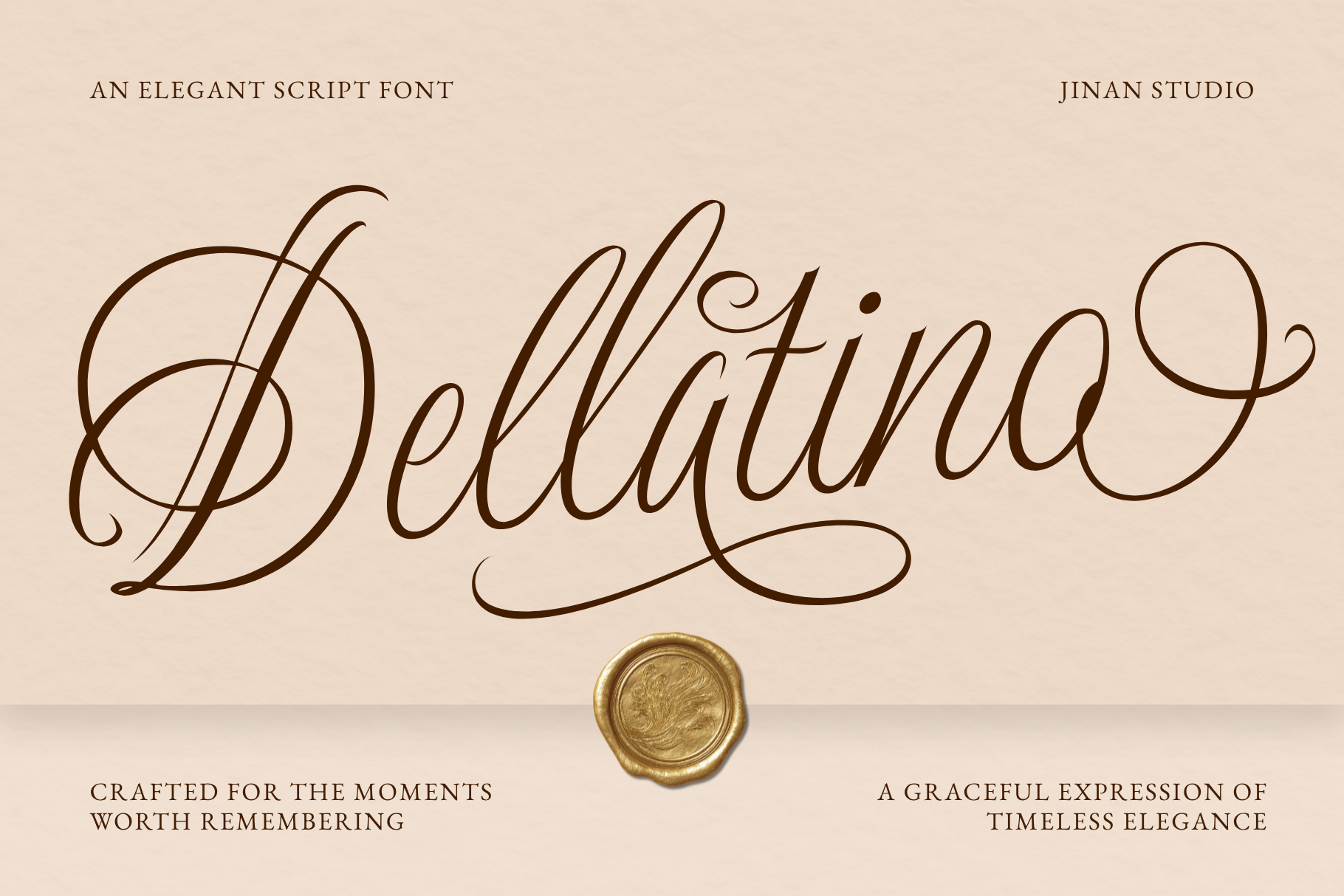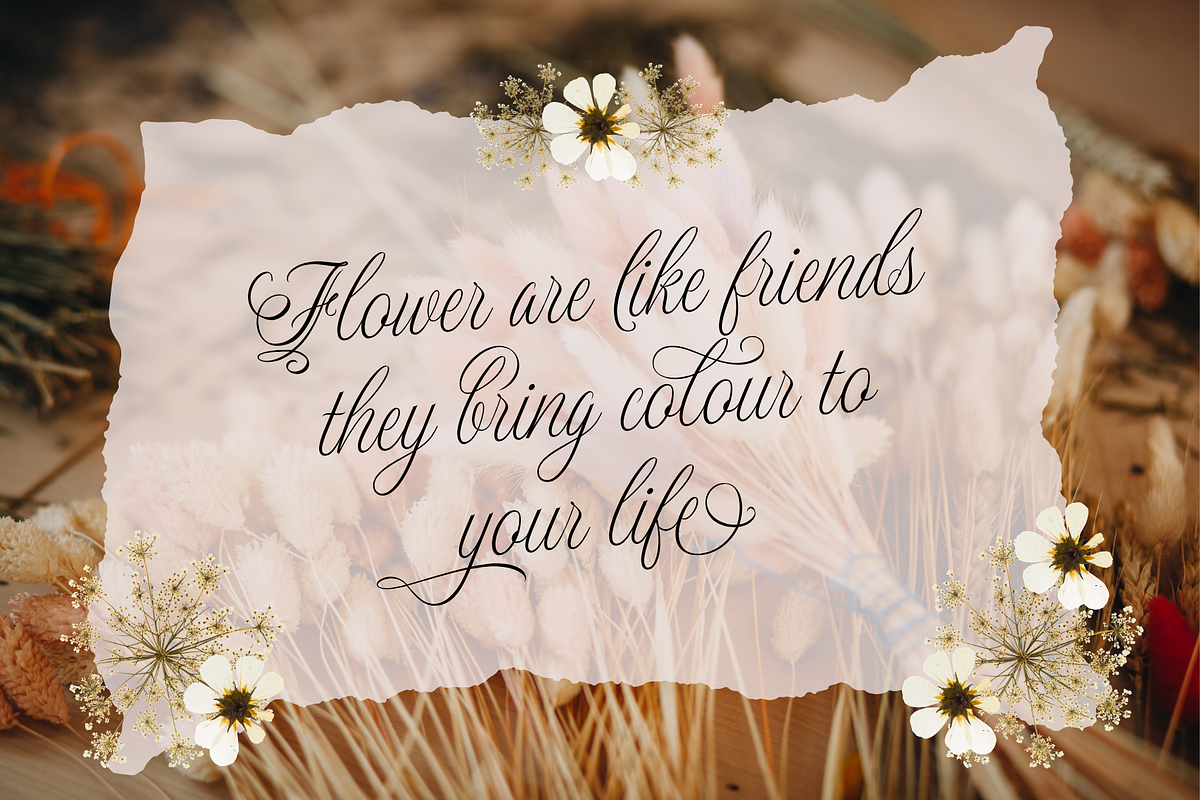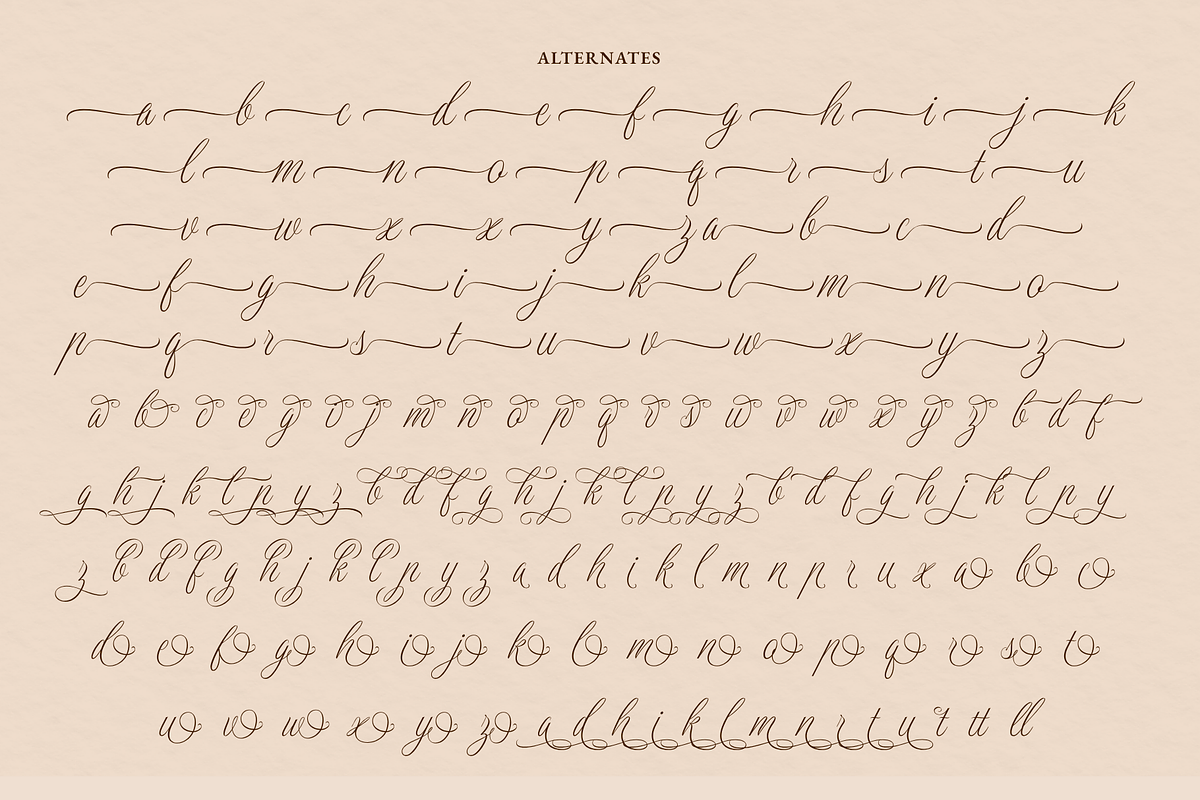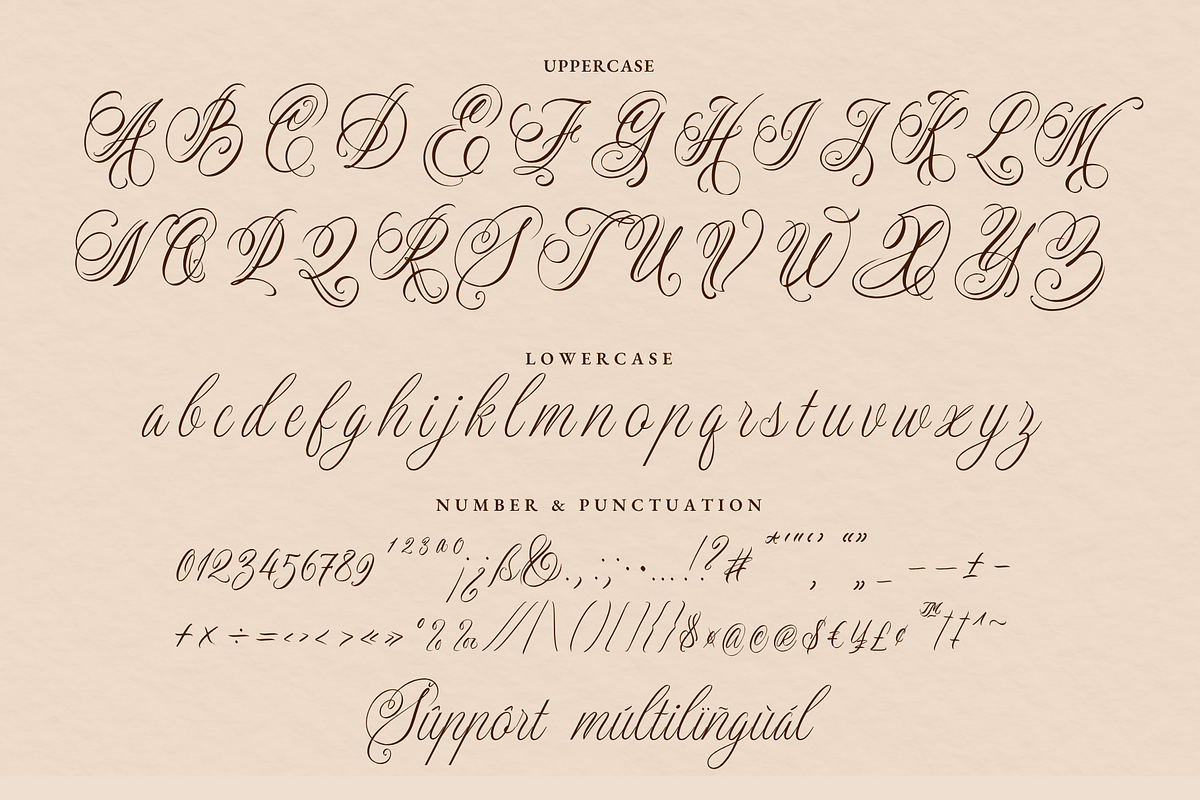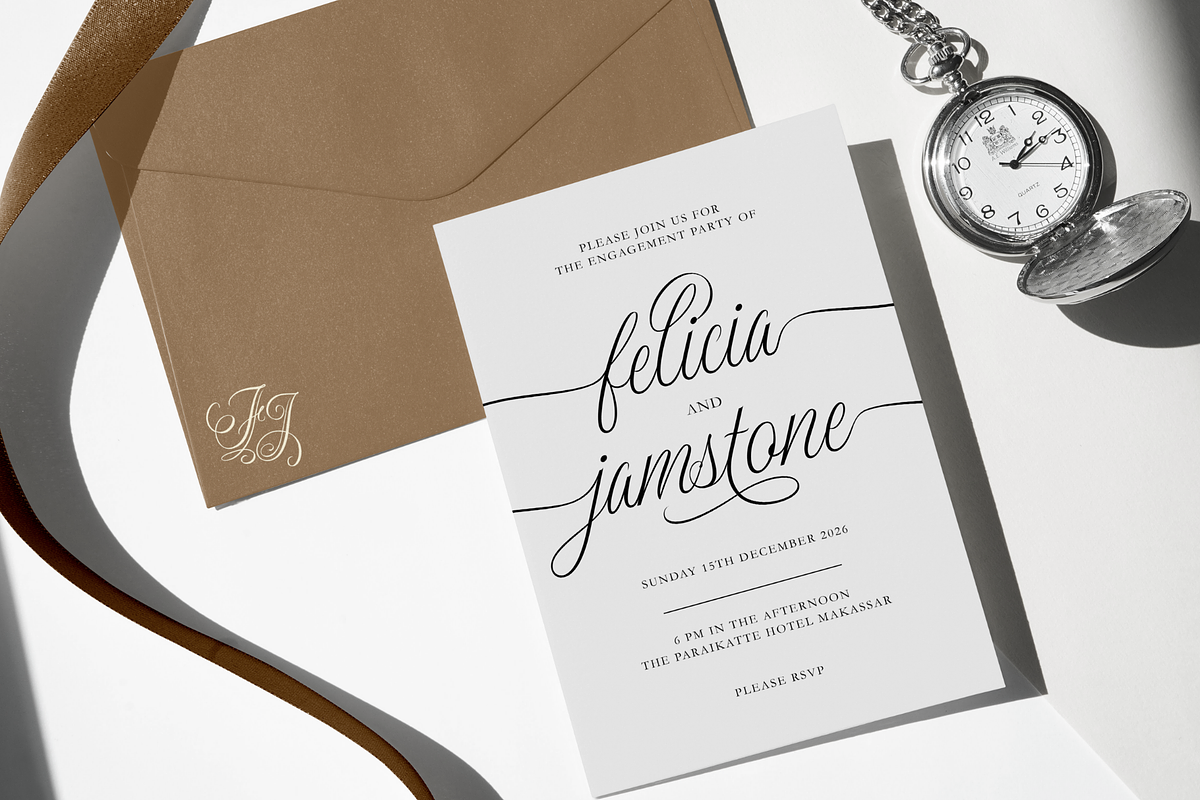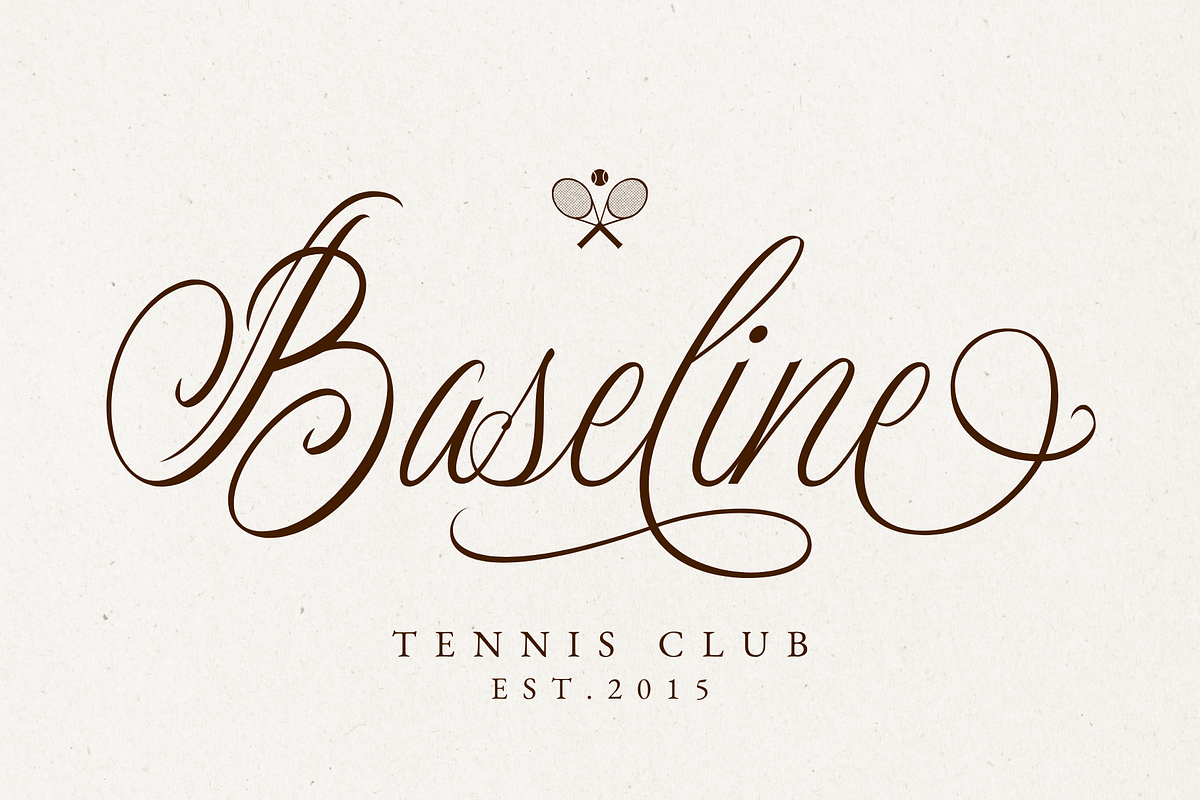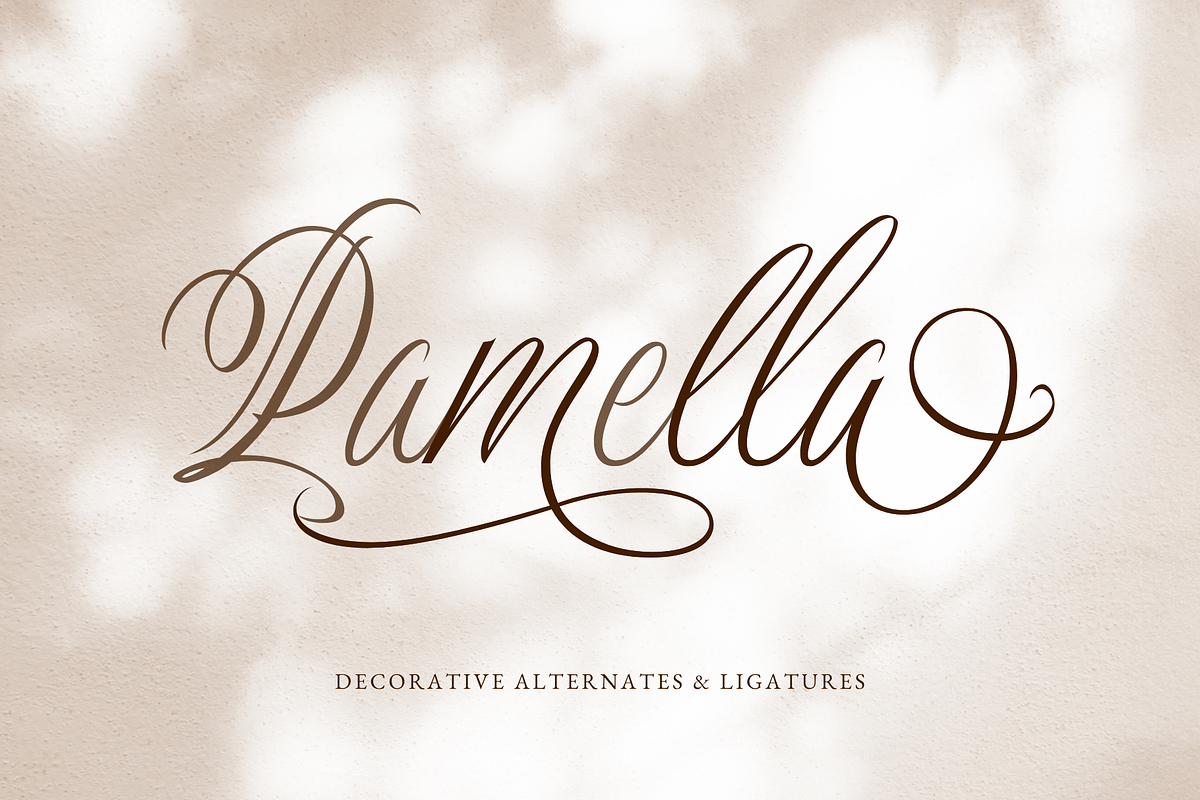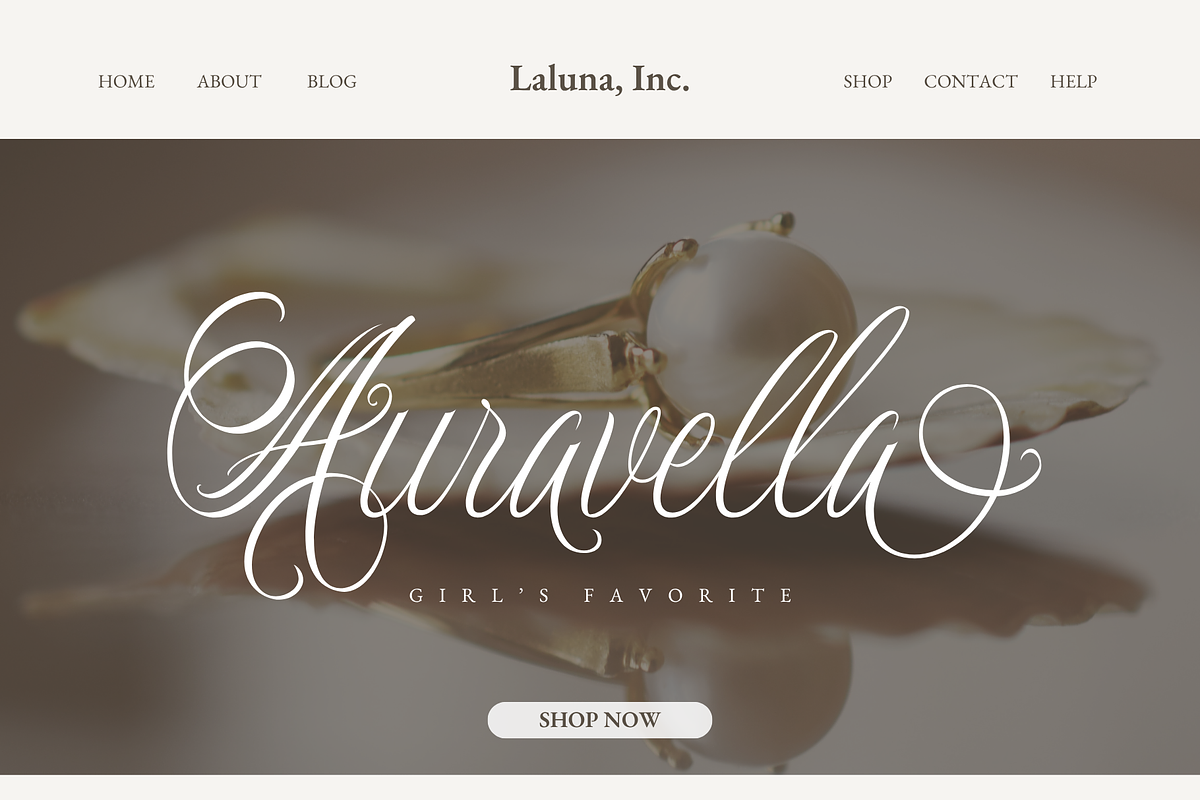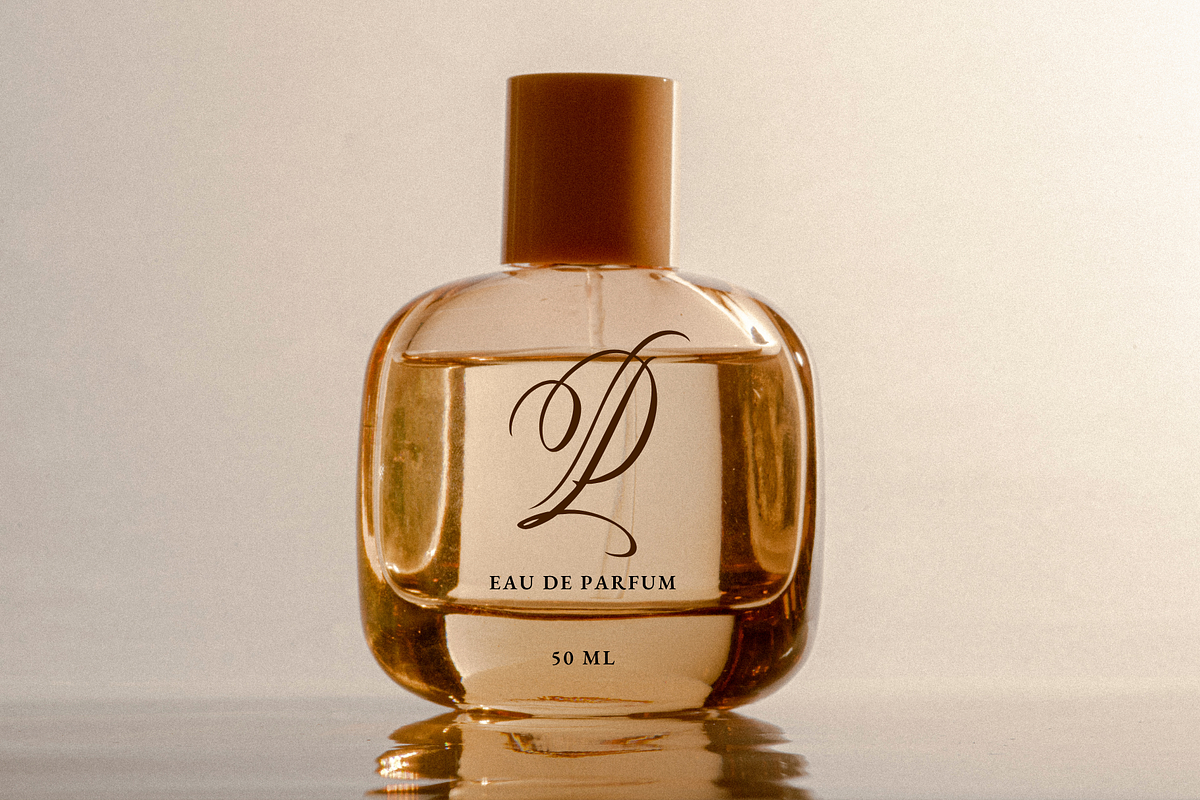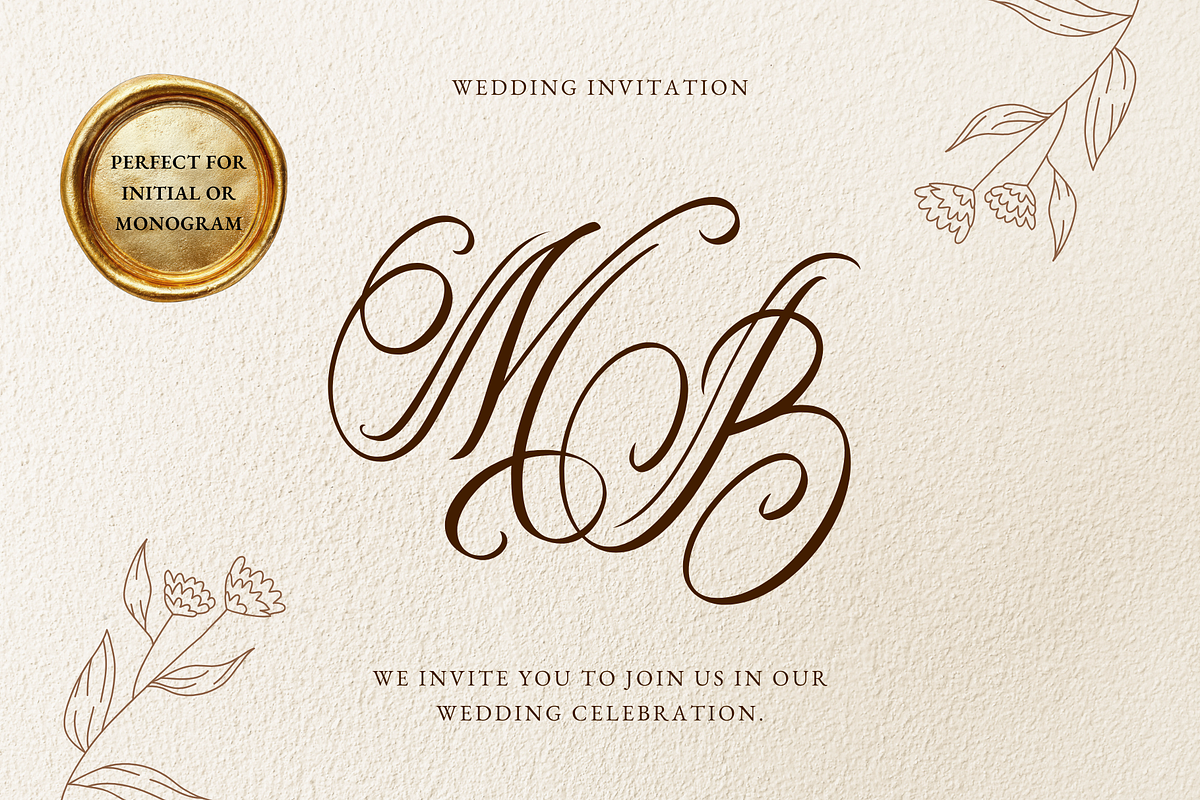
Dellatino - An Elegant Script Font
Dellatino is an elegant calligraphy script font with graceful curves, delicate strokes, and beautiful flowing swashes. Its sophisticated handwritten style creates a romantic and luxurious feel, making it perfect for wedding invitations, bridal stationery, logos, branding, signatures, quotes, greeting cards, and other elegant designs.
With its timeless and feminine character, Dellatino adds a refined touch to every project. Whether used for wedding stationery, luxury branding, packaging, social media graphics, or personalized gifts, this graceful script font is designed to make your words feel beautifully memorable.
A set of uppercase and lowercase glyphs
Number, symbol, and punctuation
Alternate & Ligatures